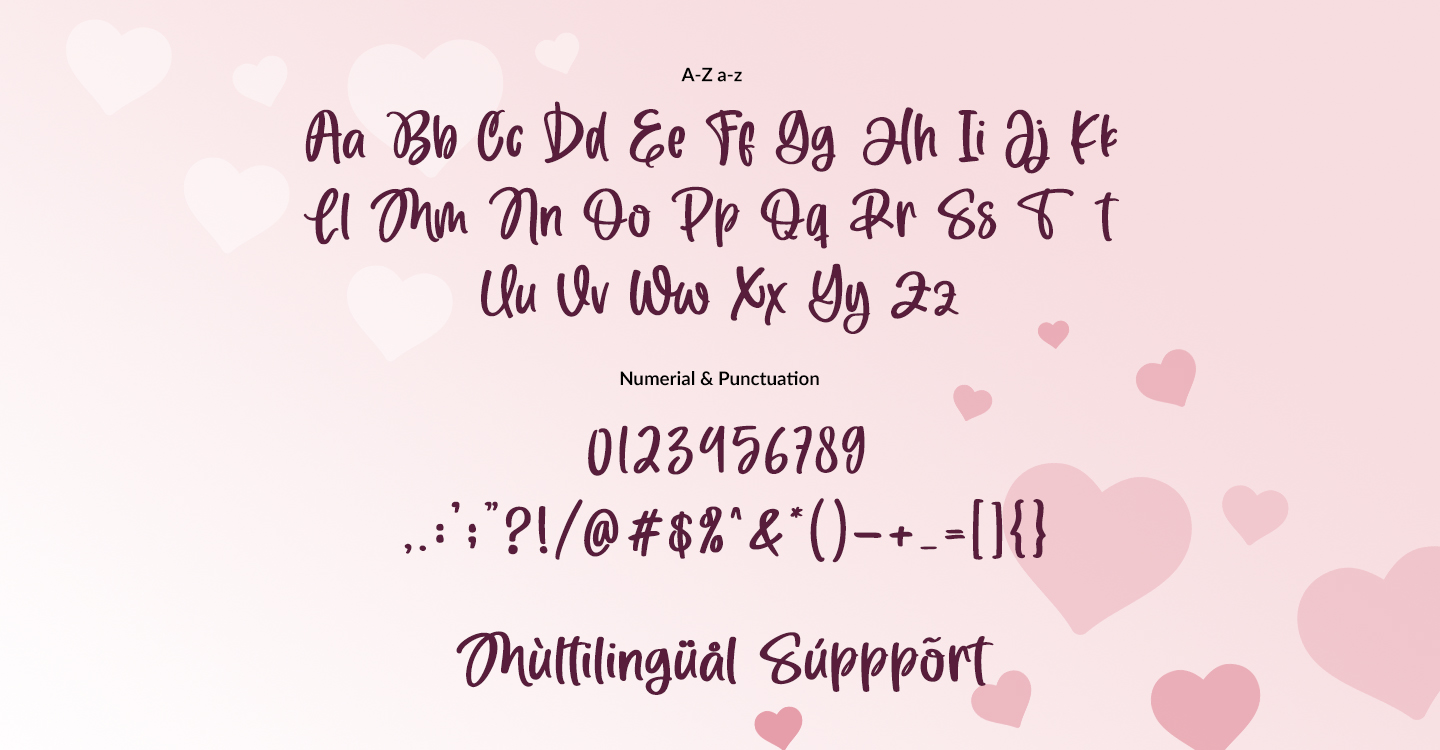
Beloved vs Signatura
Beloved and Signatura are both display typefaces sharing a script foundation. Where Beloved leans fashion, Signatura brings handwritten, warm. Compare which suits your Luxury project.
Design overlap:40%
Beloved
Signatura
| Feature | Beloved | Signatura |
| Classification | display | display |
| Language Support | latin, latin-extended | latin |
| Source | Type Forward | Artimasa Studio |
Recommended: Beloved
- fashion design character
- Suited for Wedding and Romantic
- From type-forward
Consider: Signatura
- handwritten, warm design character
- Suited for Signatures and Branding
- From artimasa-studio